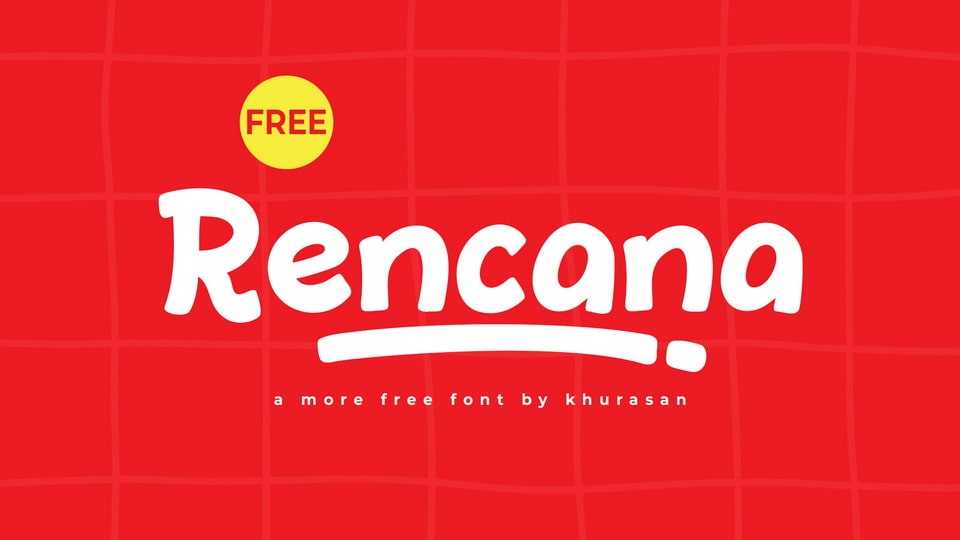
Download Rencana font, a fun and smooth script-style typeface that blends informal charm with clean readability. Its rounded terminals and friendly curves make it perfect for casual branding, lifestyle content.